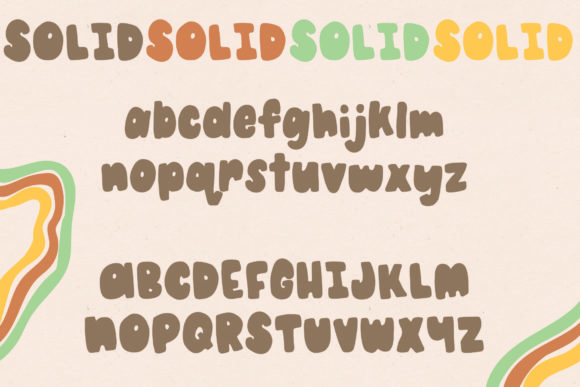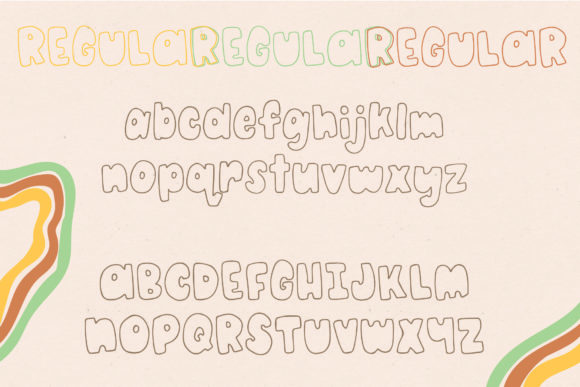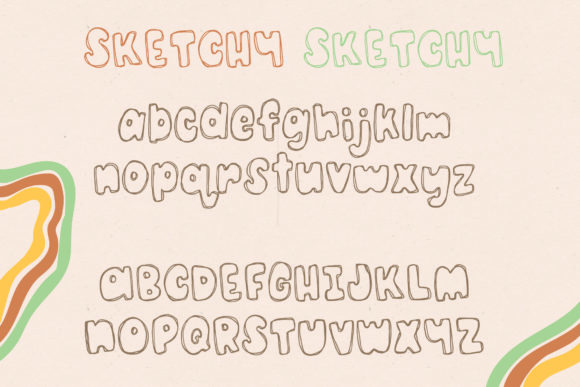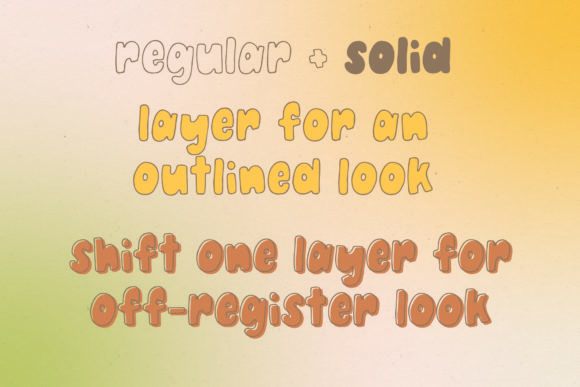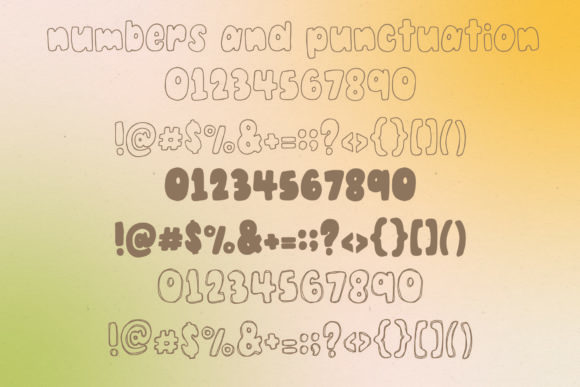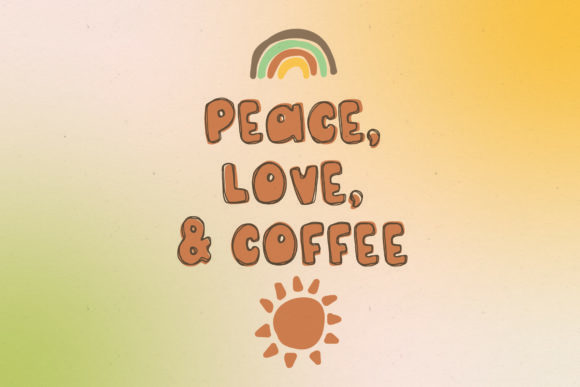
Introduction to Pudding Pie Font
Have you ever stared at a blank page, struggling to come up with the perfect design for your creative project? That’s exactly where I was when I stumbled upon the Pudding Pie Font. Its playful, retro vibe immediately sparked my imagination and helped me bring my ideas to life.
Designed to evoke the carefree spirit of the 1970s, the Pudding Pie Font is a delightful addition to any design project. With its whimsical bubble letters and simple, unserious feel, it’s the perfect tool for adding a touch of nostalgia and fun to your work.
Key Features of Pudding Pie Font
- Unique and playful font style with a transparent background, perfect for adding a touch of whimsy to designs
- Supports a wide range of languages, making it a versatile design resource for various creative projects
- Perfect for use in graphic design, digital art, and other creative projects where a fun and playful font is desired
Honest Review: Pudding Pie Font
I recently had the chance to dive into the Pudding Pie Font, a free download that promises a lot. As a designer, I was curious to see if this font lived up to its claims.
First impressions: the Pudding Pie Font has a high quality, playful feel to it. It’s the perfect addition to any creative project that needs a bit of whimsy. The font is available for free download, making it a fantastic design resource for those on a budget.
Here are some things that work well with the Pudding Pie Font:
- ✨ It’s incredibly versatile, with a range of uses from titles to body text.
- ✨ The transparent background allows for seamless integration into any design.
- ✨ The font is available in a range of weights, giving you plenty of options to suit your design needs.
That being said, there are a few limitations to consider:
- ⚠️ The font may not be the best choice for formal or professional projects, as it has a somewhat playful feel.
- ⚠️ Some users may find the font to be a bit too ornate, which could make it difficult to read in certain contexts.
Overall, I’m impressed with the Pudding Pie Font. It’s a high-quality design resource that’s perfect for creative projects. While it may not be the best choice for every situation, it’s definitely worth checking out if you’re looking for a fun, versatile font.
Getting the Most Out of the Pudding Pie Font
To get the most out of the Pudding Pie Font, use it in creative projects that require a high-quality, unique font. Some common use cases include:
- Banner design
- Print materials
The Pudding Pie Font is a great choice for designers who want a high-quality, unique font for their creative projects. Its transparent background makes it easy to use in a variety of design contexts.
Yes, Pudding Pie Font has a transparent background, allowing you to easily place it over any image or background without worrying about unwanted edges or outlines. This makes it a great resource for designers who need a high-quality font for their creative projects.